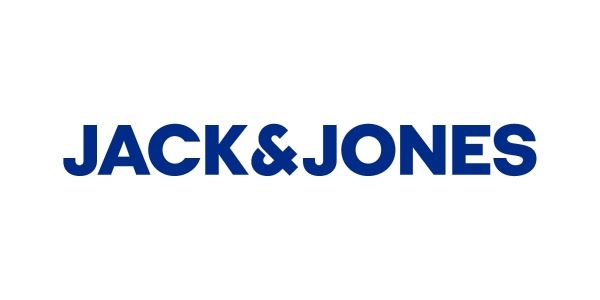
Jack & Jones Font
What Font is Jack & Jones?
Jack & Jones Font reflects the brand’s bold, modern, and confident style, perfectly aligning with its identity as a leading men’s fashion label. The primary typeface used in the Jack & Jones logo is Italian Plate No2 Expanded by Playtype — a clean, industrial-style sans-serif font that emphasizes strength and simplicity. It’s a commercial font, but we’ve also found a free alternative font that captures the same contemporary and masculine look, making it ideal for personal design projects inspired by the brand.